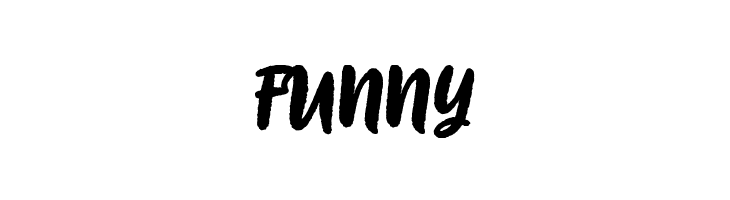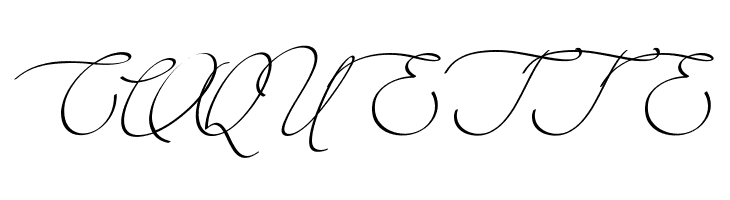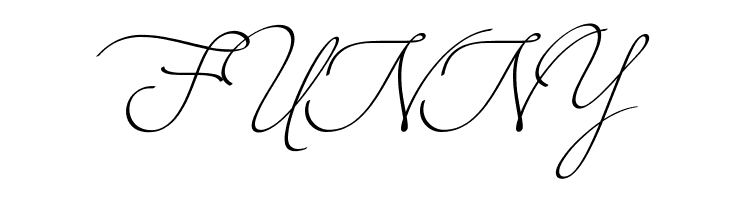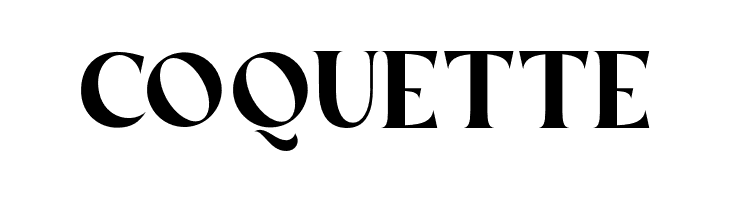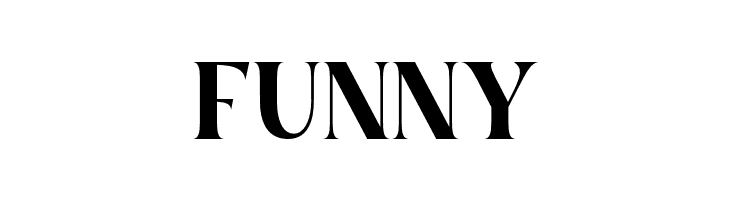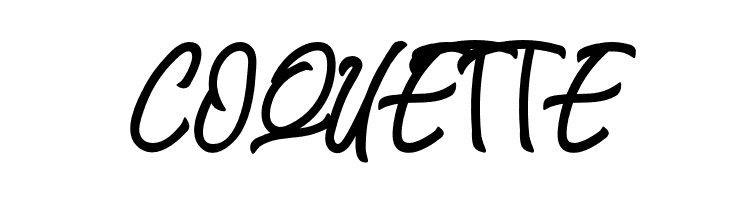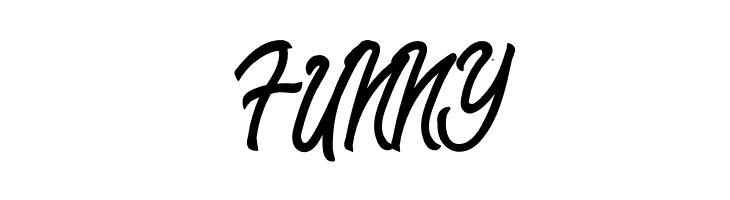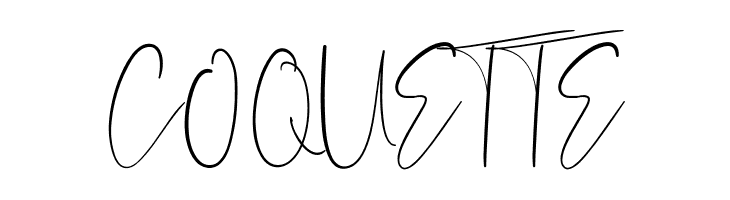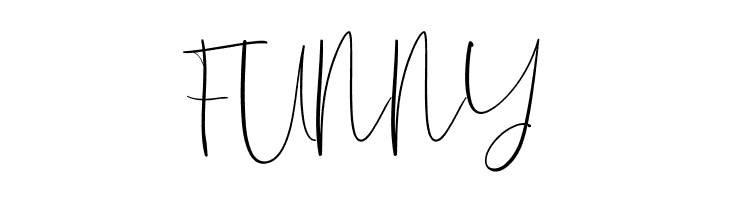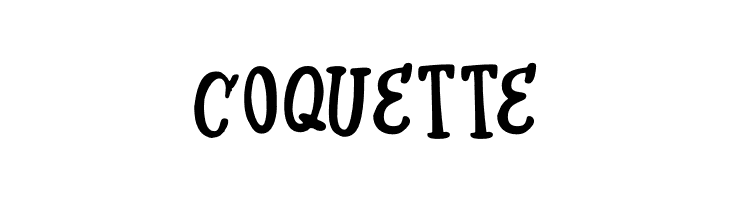
A playful, artistic handwritten font with dynamic strokes and a whimsical style.
A bold, expressive handwritten font with a brush-like texture.
A bold, geometric font with strong, block-like characters and modern flair.
A bold, high-contrast serif font with sharp serifs and elegant curves.
A modern, waveform-inspired font with jagged, angular lines.
A dynamic and expressive script font with fluid, interconnected strokes.
A bold, handwritten font with a brush-like texture and dynamic style.
A bold, rounded font with a playful and friendly style.
An elegant and flowing script font with graceful curves and swashes.
A playful and whimsical font with bold, curvy letterforms and quirky details.
A bold, angular serif font with a modern and geometric style.
A bold, outlined slab serif font with geometric structure and strong visual impact.
A bold, hand-drawn font with a playful and energetic style.
A playful, hand-drawn font with a bold, cartoonish style.
A playful and elegant script font with fluid, cursive strokes.
A bold, modern font with high contrast and a slightly condensed style.
A bold, distressed font with a grunge effect and rugged appearance.
A bold, playful, and quirky decorative font with high contrast and artistic flair.
A sophisticated script font with elegant, flowing strokes and artistic flourishes.
A bold, geometric font with a 3D effect and modern aesthetic.
A bold, geometric outline font with sharp angles and consistent stroke width.
A bold, geometric font with a modern, tech-inspired style.
A bold, modern font with a classic touch, featuring strong uppercase and consistent lowercase letters.
A bold, high-contrast font with dramatic strokes and a commanding presence.
A modern serif font with elegant, refined letterforms and distinct serifs.
A classic serif font with a modern, elegant style and pronounced serifs.
A dynamic and elegant typeface with strong diagonal strokes and sophisticated curves.
A high-contrast, elegant typeface with dynamic serifs and a modern flair.
A lively and expressive handwritten font with fluid, dynamic strokes.
A playful, hand-drawn font with bold, rounded characters.